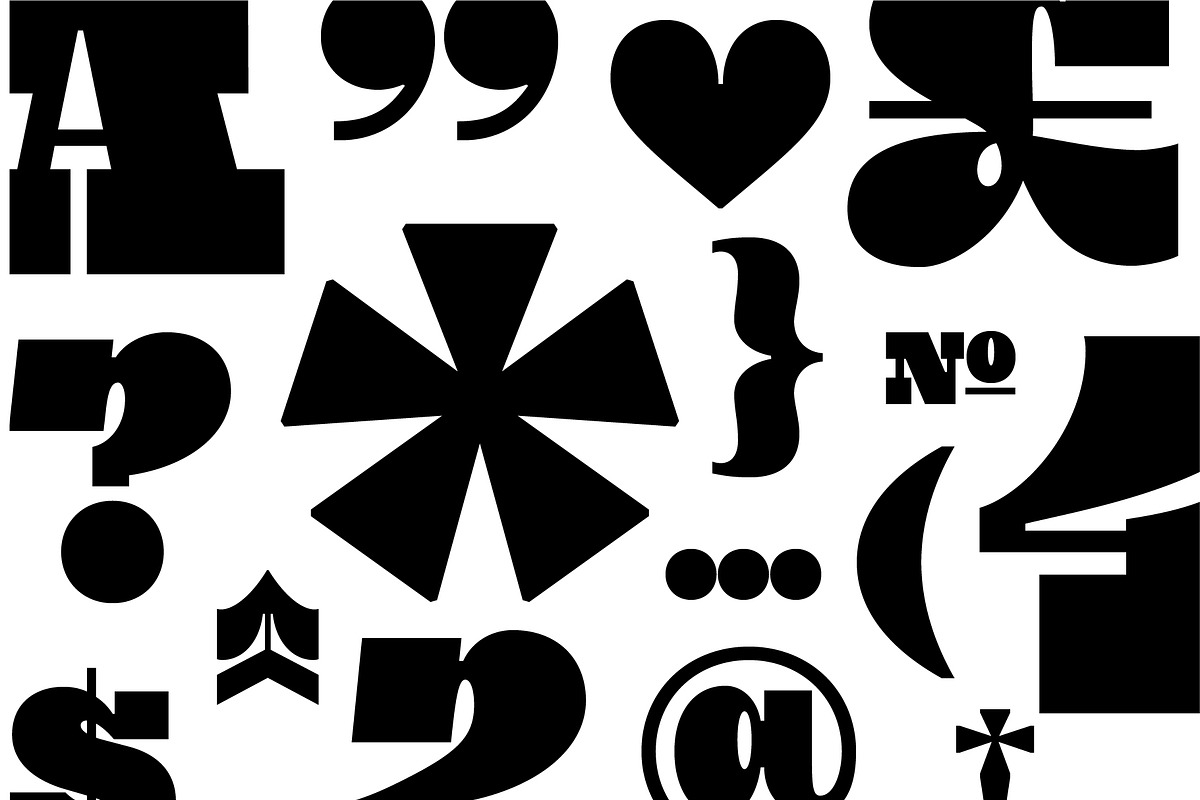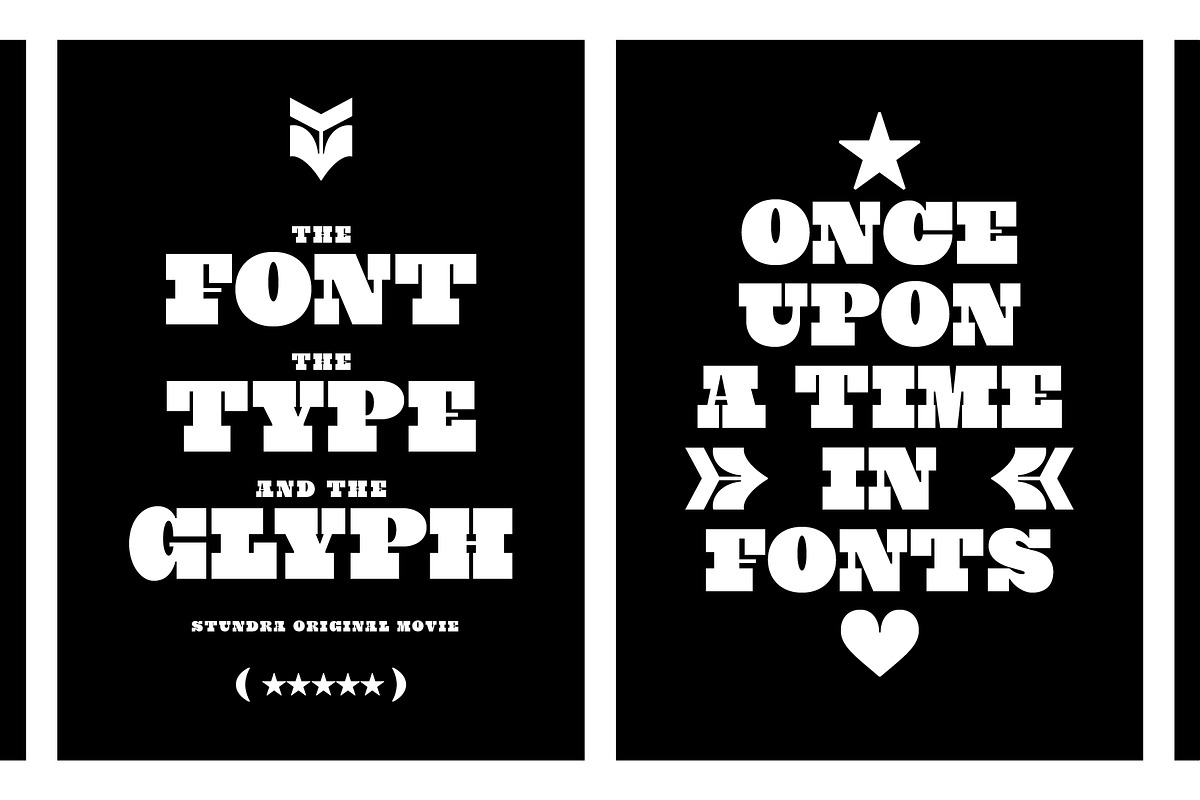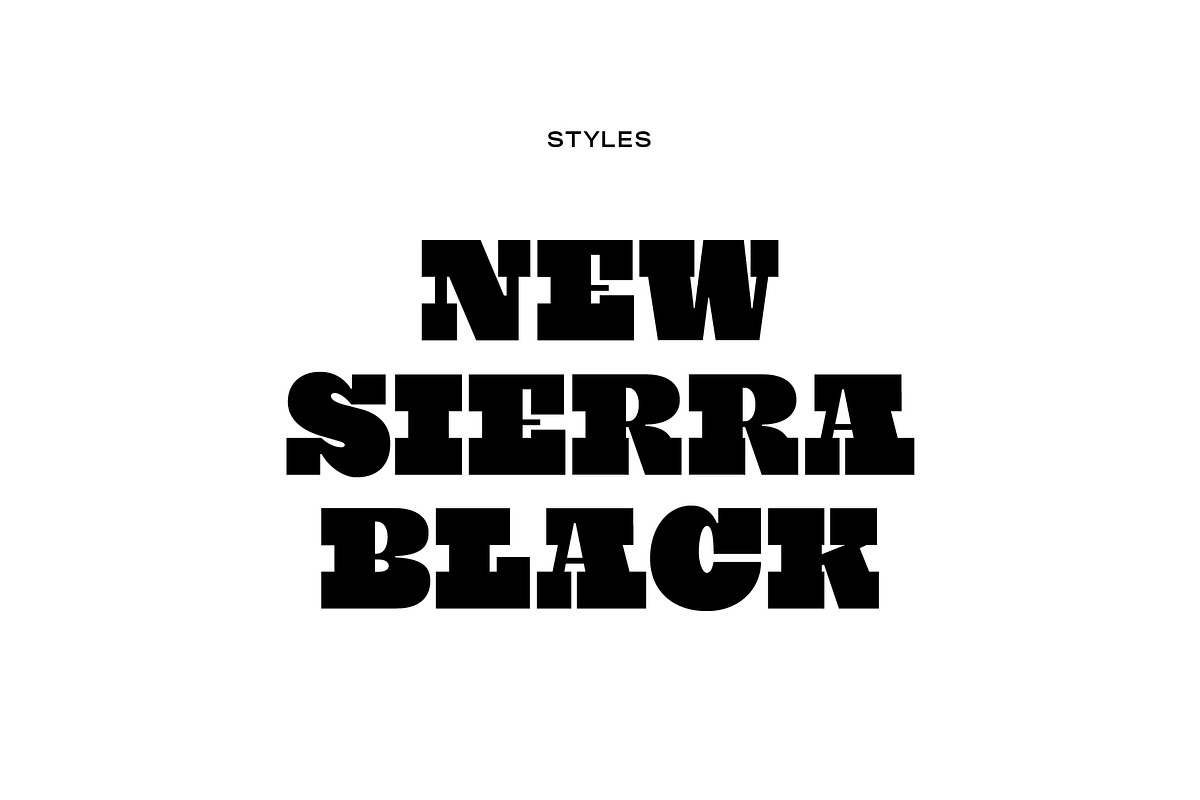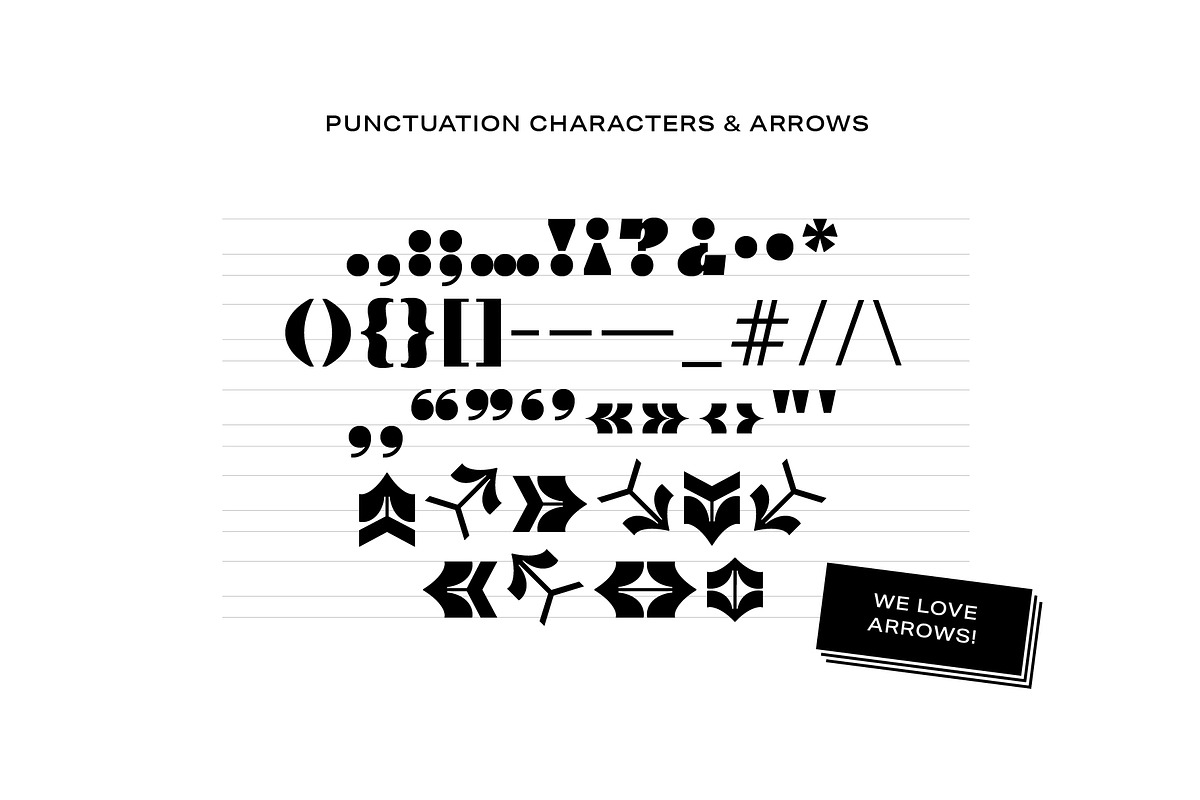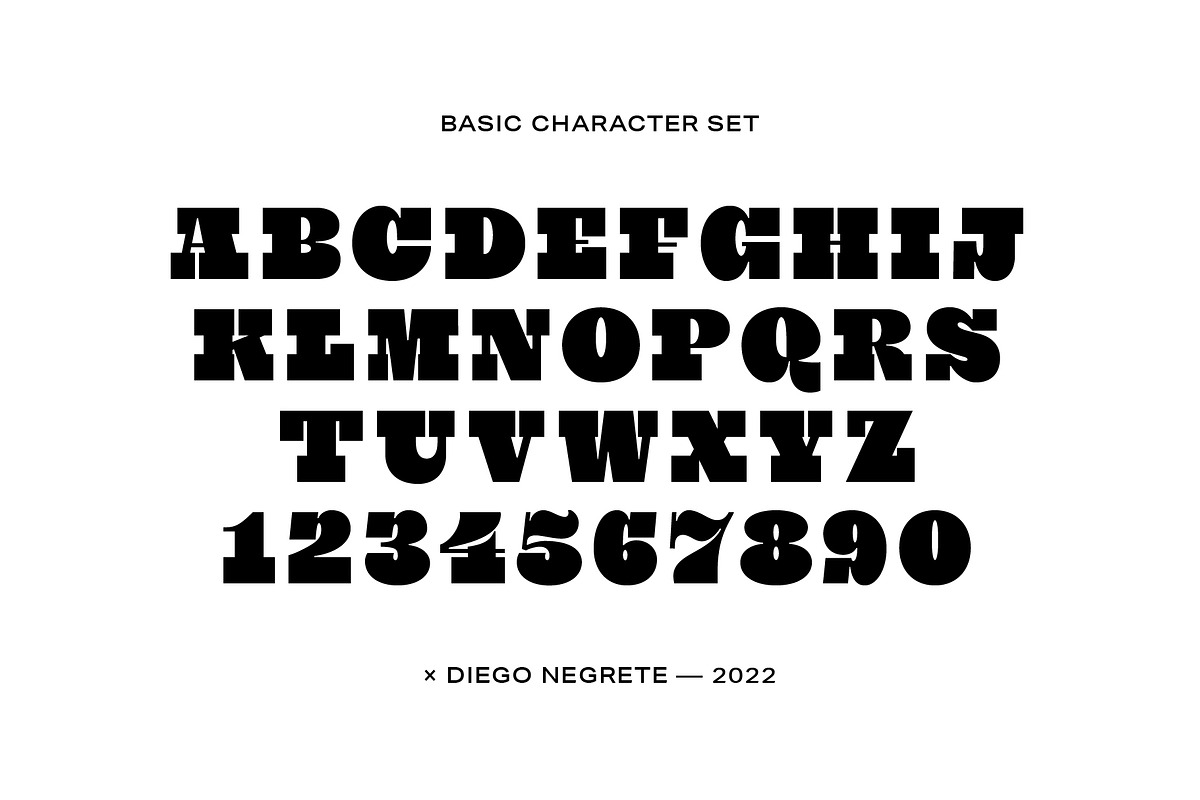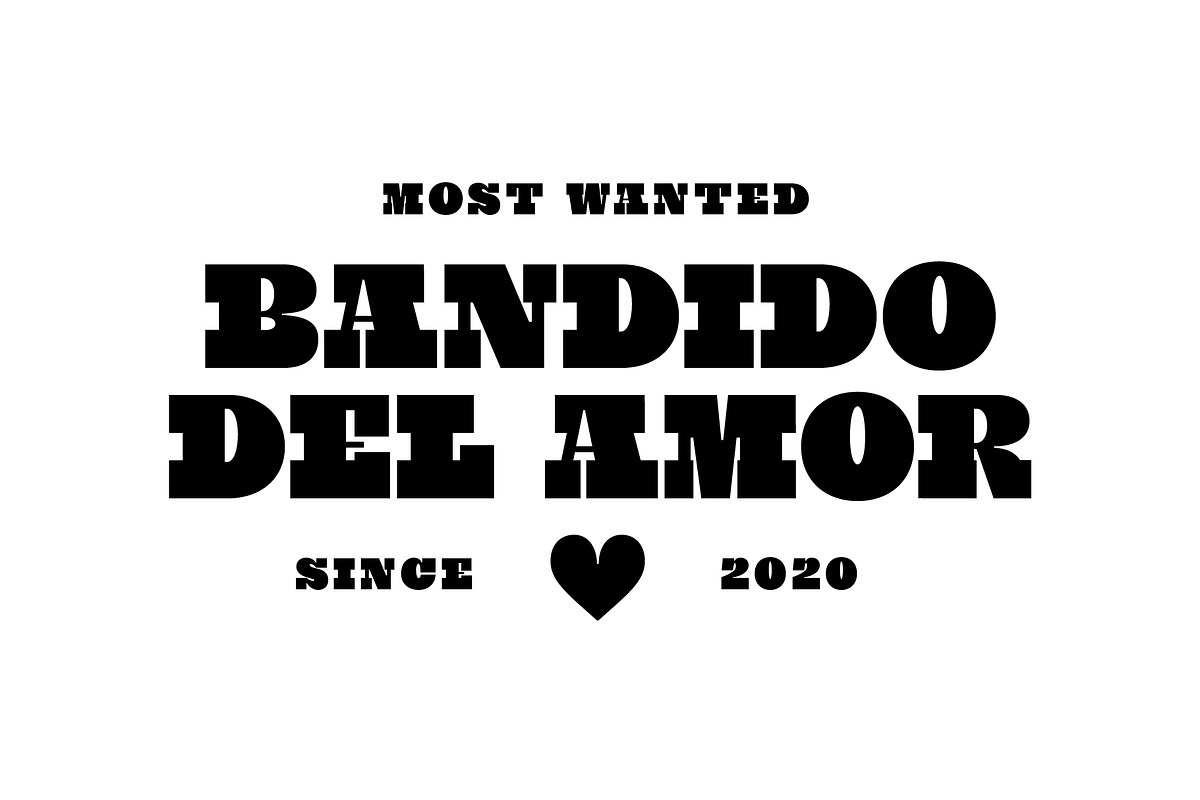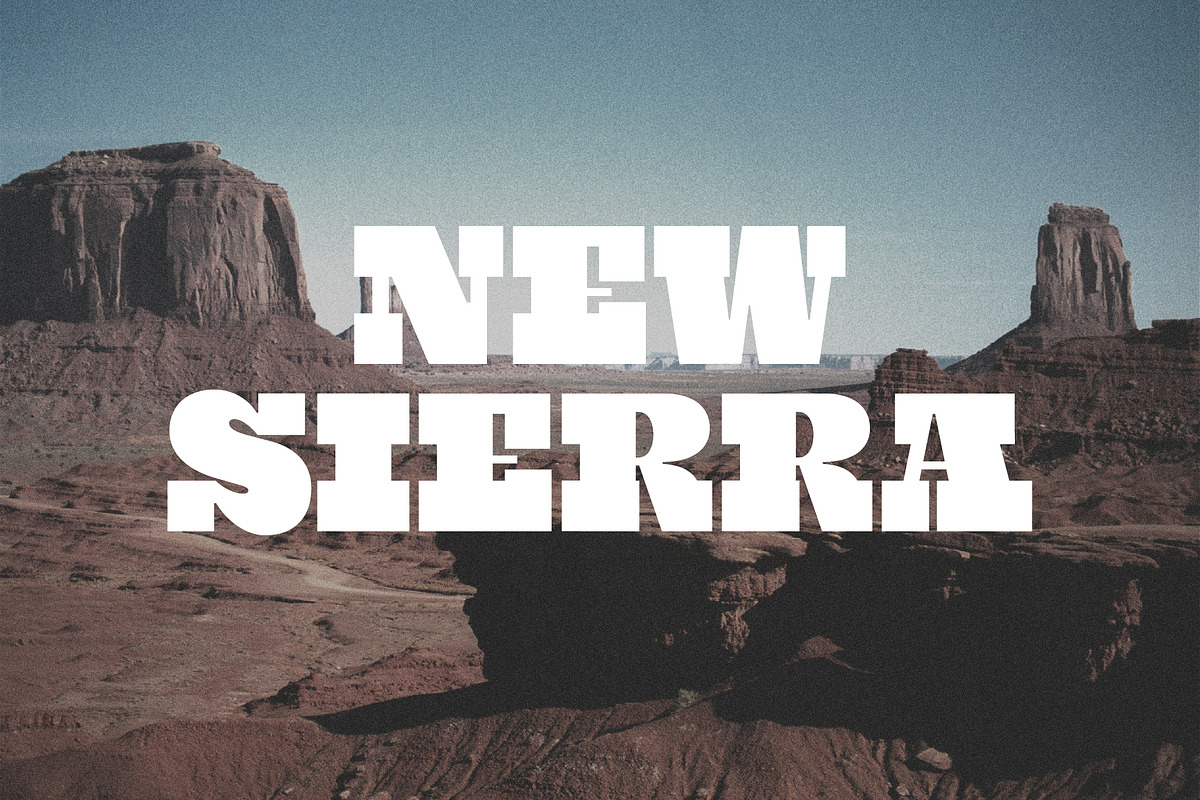
New Sierra
New Sierra was a 36daysoftype exercise from 2017 that I always wanted to bring back to life in the form of a typeface and now it’s finally out here. It is inspired by the Western genre universe of big Slab Serif Tuscan Fonts. It comes in a single black weight in an all-caps typeface with very expressive numbers, big punctuation symbols, and some unique arrows to play around with.